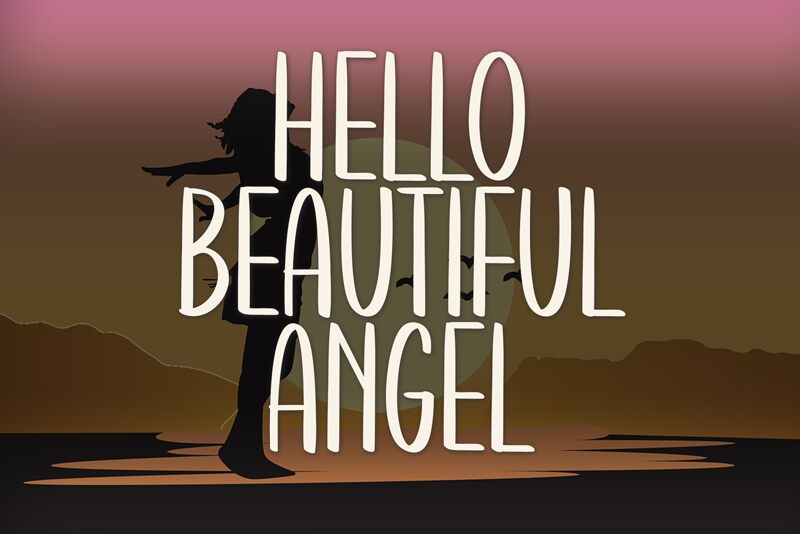
Hellobeautiful Angel
Hellobeautiful Angel font by Creatype Designer is a condensed handwritten font that blends a vintage-inspired, casual elegance with a modern-retro fusion. With its rounded, elongated proportions, this typeface captures the essence of classic calligraphy while maintaining a fresh and contemporary appeal.
Enjoy creating authentic brand logos, signage, wall art quotes, stationery designs, letterheads, and packaging with this free calligraphy font. Title magazines with style or make exquisite wedding invites; develop cute posters or engaging YouTube thumbnails along with various other projects!